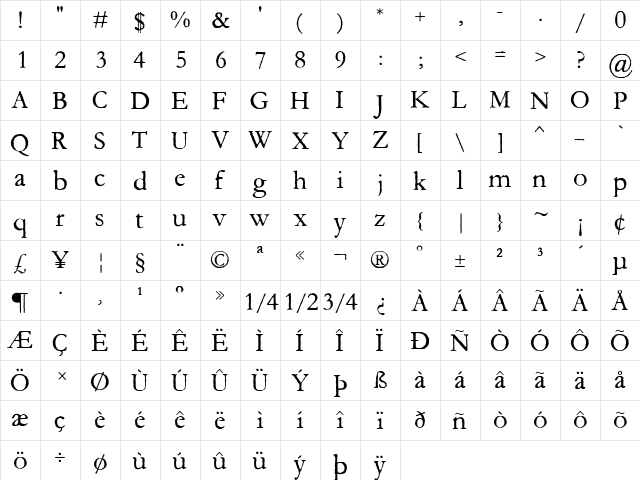
Aquifer Regular Font Preview
Aquifer Regular
Design Context for Aquifer Typeface
Aquifer offers clean, dependable letterforms without strong stylistic allegiance, making it a practical choice for designers who need flexibility.